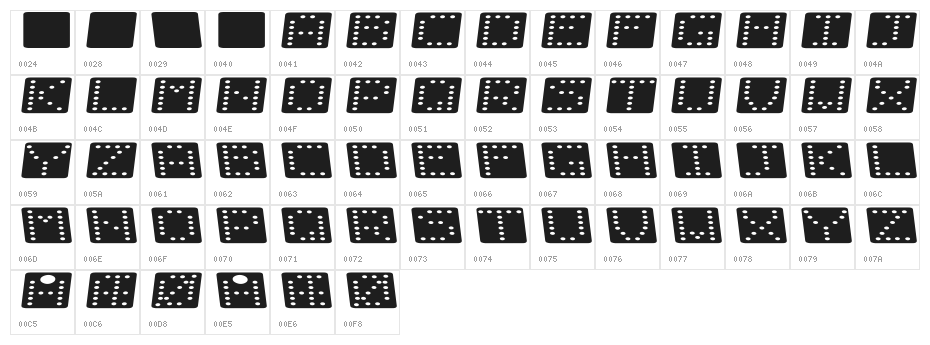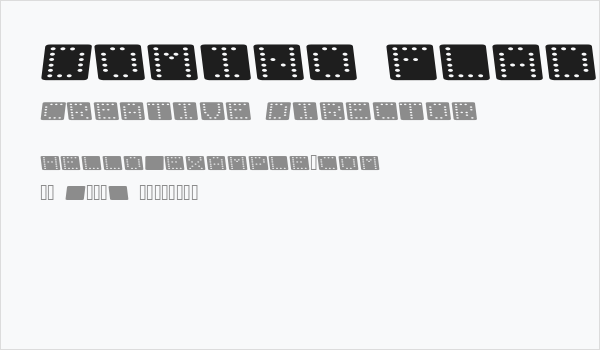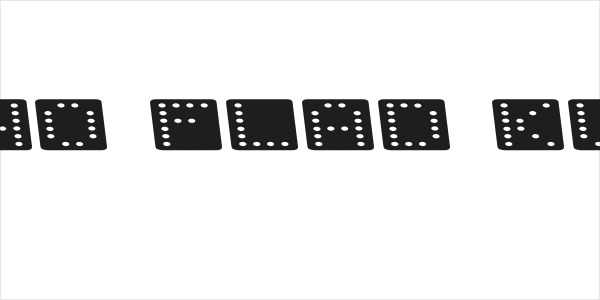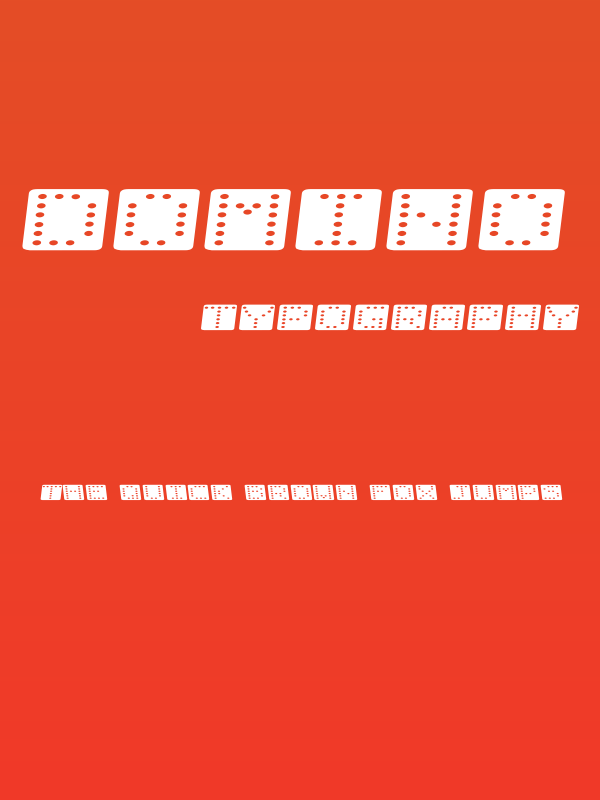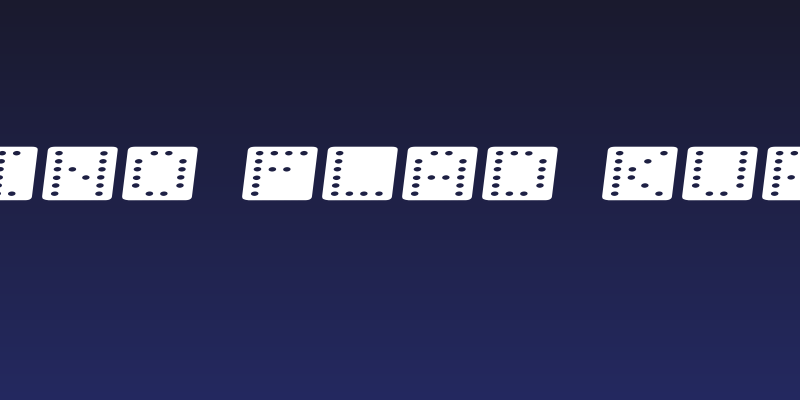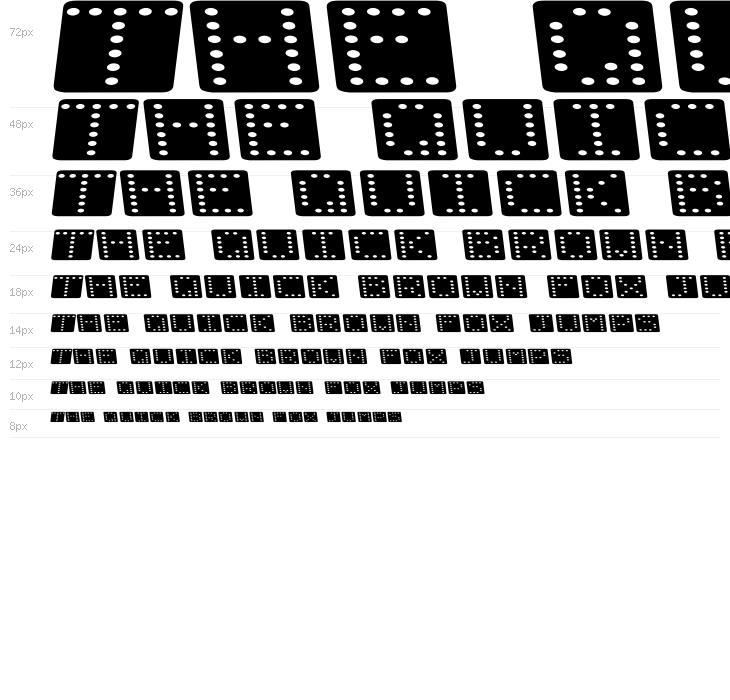
Domino flad kursiv Font
Domino flad kursiv Description
This font is a unique and playful design that mimics the appearance of domino tiles. Each character is enclosed within a rectangular shape, resembling a domino piece, and features small dots that add to the domino effect. The letters are slightly tilted, giving an italicized appearance, which adds a dynamic and fun element to the overall style. The font is bold and eye-catching, making it suitable for creative and informal projects. The spacing between characters is consistent, ensuring readability while maintaining the playful theme. This decorative style is perfect for projects that require a touch of whimsy and creativity.
| Proposed Projects | Ideal for children's books, game-themed designs, playful branding, and creative posters. |